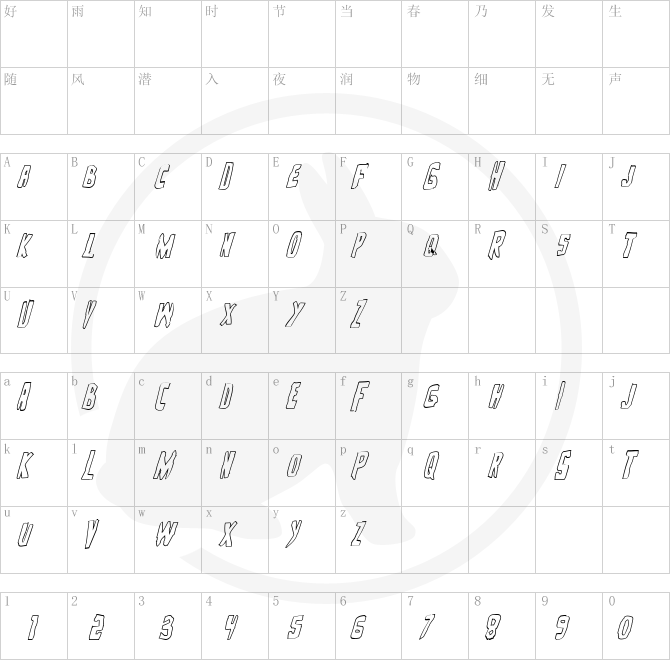
- Font Name:Zakenstein Outline Italic
Zakenstein-Outline-Italic.ttf is a very beautiful artistic font, Zakenstein-Outline-Italic.ttf is widely used in the design and printing of various books and pictures,Zakenstein-Outline-Italic.ttf has a strong visual impact,Zakenstein-Outline-Italic.ttf is a commonly used font in newspapers, magazines and books, and is used in posters, e-commerce Poster design, store design, logo design, font design and other fields.Zakenstein-Outline-Italic.